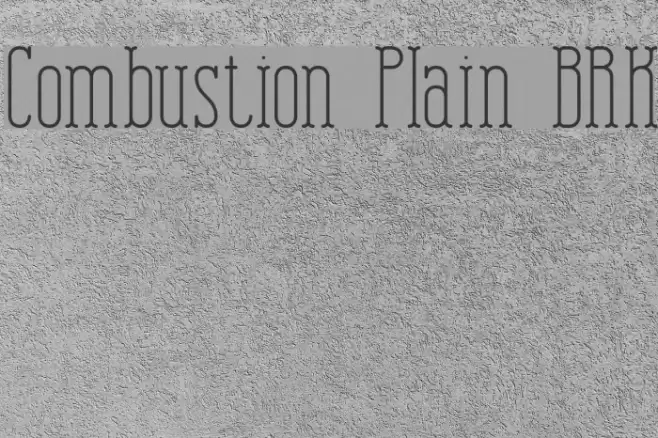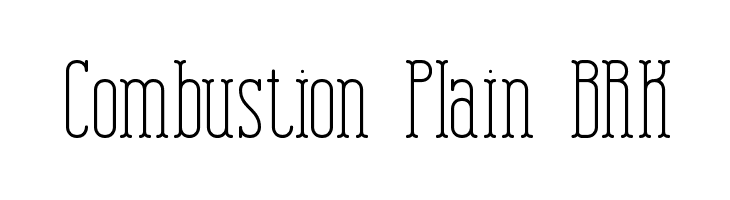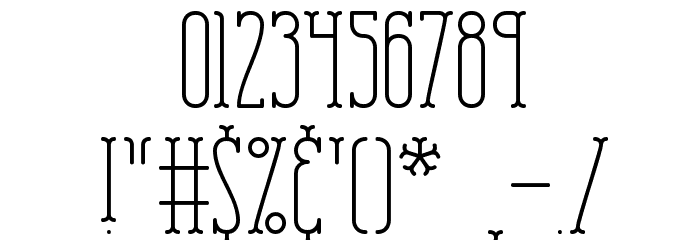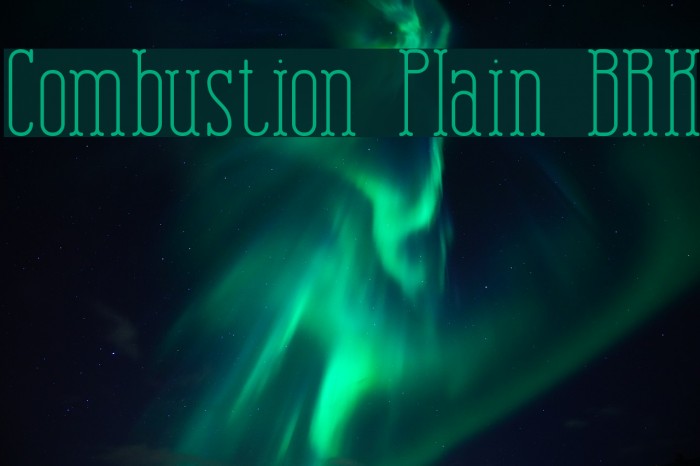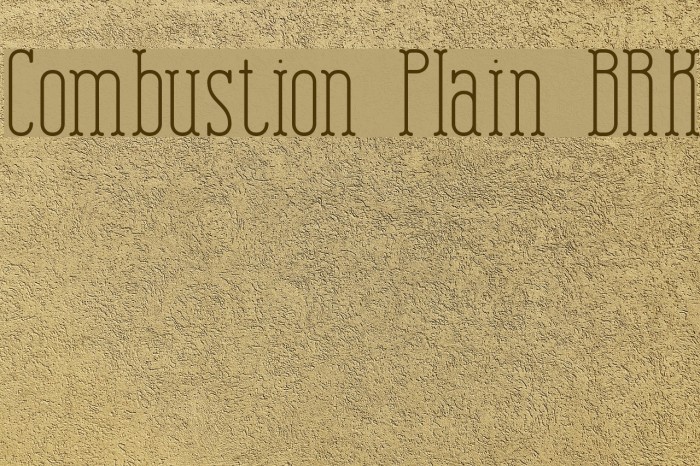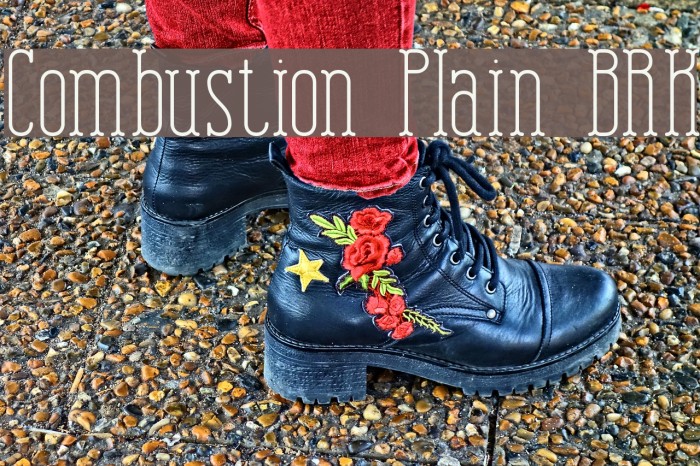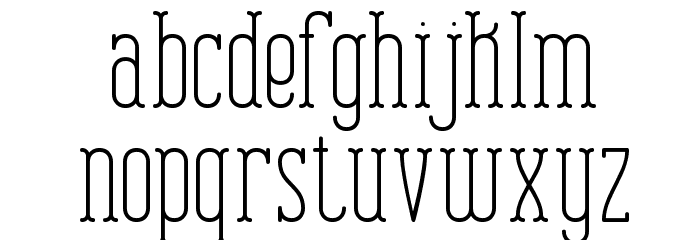
Combustion Plain BRK Font
Combustion Plain BRK Description
This font features a unique and decorative style with elongated serifs and a tall, narrow structure. The characters exhibit a playful yet elegant design, with consistent stroke widths and a slight whimsical flair in the curves and terminals. The uppercase letters are particularly striking, with their extended vertical lines and distinctive serif details. The lowercase letters maintain a cohesive look, complementing the uppercase with their own subtle curves. Numbers and special characters follow the same design principles, ensuring a uniform appearance across all glyphs. This font's distinct style makes it suitable for creative and artistic projects.
A decorative serif font with elongated serifs and a tall, narrow structure from Script fonts.